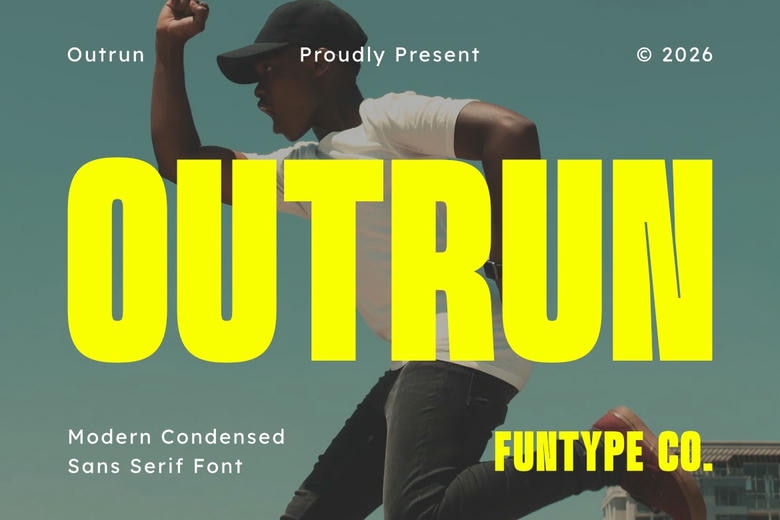
Outrun Font
Outrun is a modern sans-serif font designed for bold branding and creative projects. With its geometric shapes, strong lines, and sharp details, it stands out in headlines, streetwear, activewear, vinyl decals, apparel graphics, and posters.
Outrun Sans Serif Font